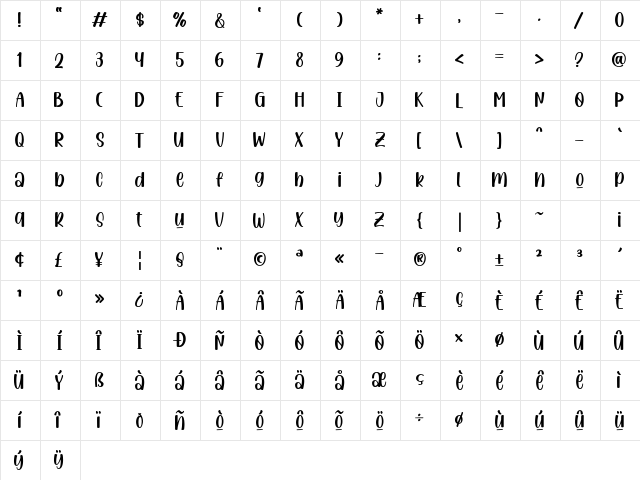
Confused Regular
| Foundry | Kong Font |
| Designer | Kong Font |
Design Context for Confused Typeface
Confused is a composed and adaptable typeface that performs quietly and consistently across a wide range of design contexts.